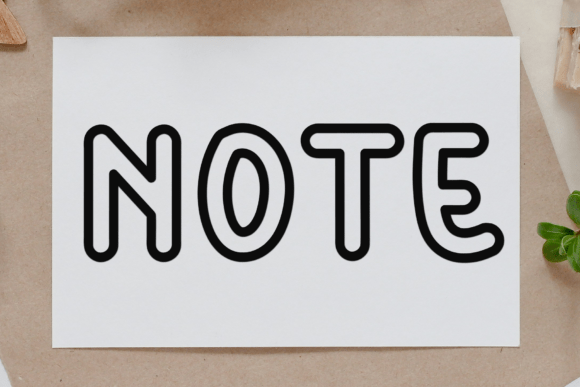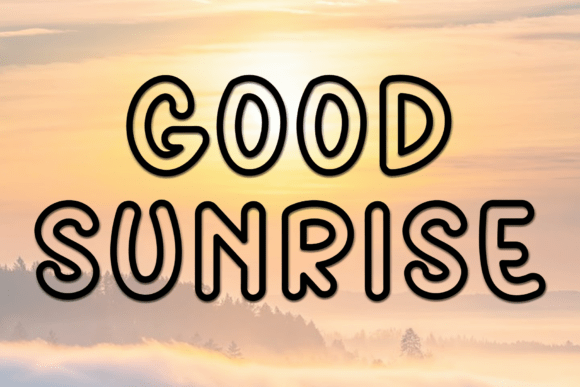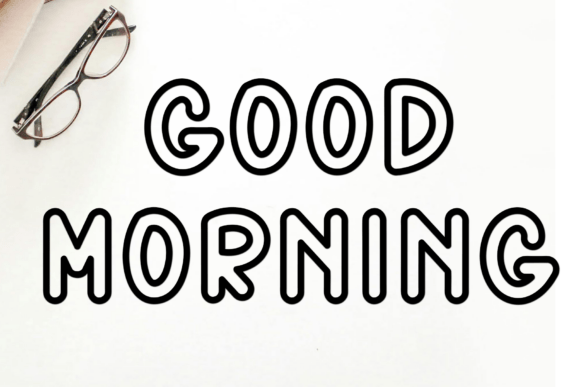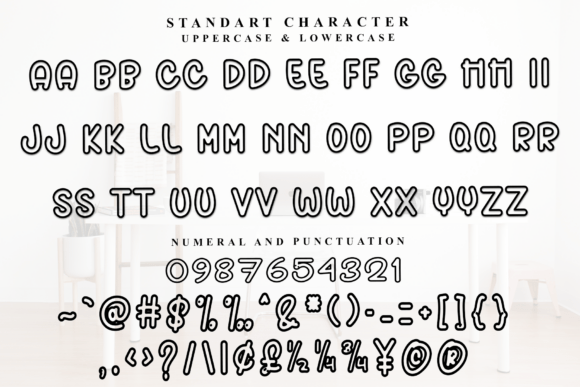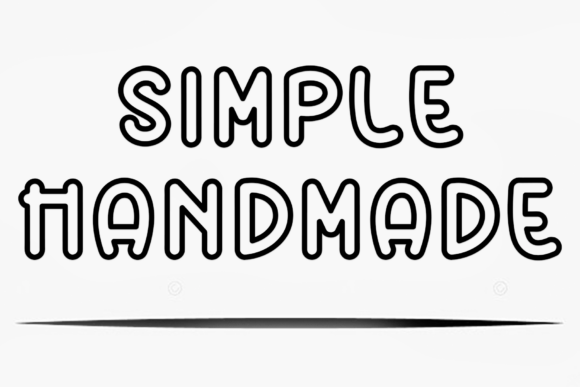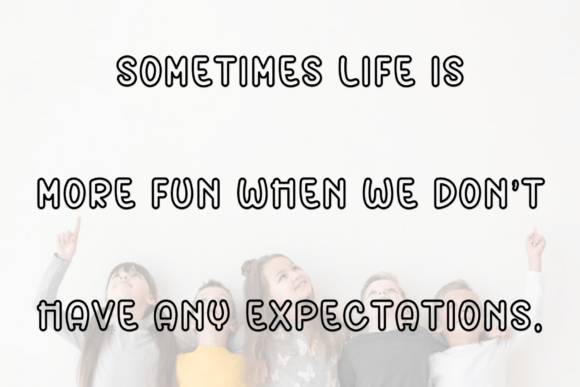
Introduction to Nothing Hunting Font
As a designer, there’s nothing quite like the thrill of bringing a creative project to life. It’s the moment when all the elements come together, and your vision takes shape. For many of us, that moment is especially magical during the holiday season, when the air is filled with festive cheer and the desire to create something truly special is at its peak. That’s why we’re excited to introduce you to the Nothing Hunting Font, a delightful typeface that captures the essence of the holiday season.
With its whimsical flair and decorative elements, the Nothing Hunting Font is the perfect design resource for adding a touch of enchantment to your holiday-themed projects. Whether you’re working on greeting cards, gift tags, or any other festive design, this high-quality font is sure to bring a cheerful and nostalgic ambiance to your words. And with its transparent background and PUA encoded glyphs, it’s never been easier to access all the amazing features of this fantastic font.
Key Features of Nothing Hunting Font
- High-quality design resource for creative projects, available as a free download.
- Unique, minimalist design with a transparent background, ideal for modern designs and layouts.
- Features a clean and simple design, making it perfect for use in a variety of creative projects, from logos to typography.
- Perfect for designers and artists looking for a high-quality, versatile font to enhance their creative projects.
Honest Review: Nothing Hunting Font
As a designer, I’m always on the lookout for high-quality design resources to elevate my creative projects. Recently, I stumbled upon the Nothing Hunting Font, and I’m excited to share my honest review with you.
What works well: ✨ The Nothing Hunting Font is a stunning, modern sans-serif font that’s perfect for a variety of design applications. Its clean lines, sleek curves, and subtle nuances make it an excellent choice for anything from branding to editorial design. Plus, it’s available as a free download, making it a fantastic resource for designers on a budget.
Some of the notable features of this font include:
- Transparent background, allowing for seamless integration with various design elements
- High-quality design, suitable for both print and digital applications
- Perfect for creative projects that require a modern, sophisticated aesthetic
⚠️ One limitation I’ve noticed is that the font might not be ideal for very small text sizes due to its minimalistic design. However, this can be easily worked around by adjusting the font size or pairing it with a complementary font.
Overall, I’m impressed with the Nothing Hunting Font, and I’d highly recommend it to designers looking for a high-quality, free design resource. Its versatility, combined with its sleek design, makes it an excellent addition to any design toolkit.
How to Use Nothing Hunting Font
The Nothing Hunting Font is a high-quality design resource ideal for creative projects that require a unique and eye-catching look. With a transparent background, this font is perfect for overlays, graphics, and other design elements.
To get the most out of the Nothing Hunting Font, experiment with different font sizes, colors, and combinations to create a unique look. Also, use it in conjunction with other design elements, such as images and graphics, to add depth and interest to your design project.
The Nothing Hunting Font is ideal for creative projects, such as social media graphics, posters, and flyers. It’s also great for designing logos, business cards, and other marketing materials.